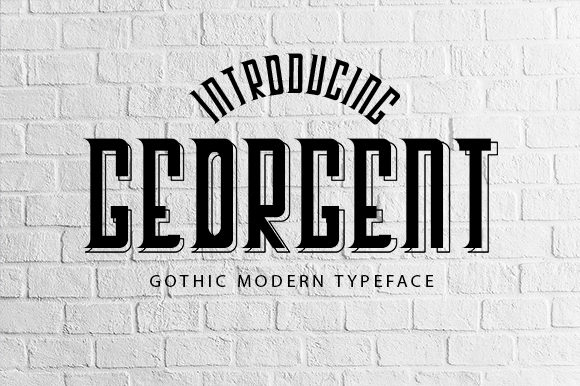
Introducing Georgent Font: The Bold and Timeless Display Font for Modern Websites
In the realm of web design, fonts hold the power to transform the digital landscape into a captivating tapestry of visual artistry. They are the unsung heroes that elevate user experience, leaving an indelible mark on the hearts and minds of your audience.
Georgent Font, crafted with meticulous care by the renowned FOLV, is not merely a collection of letters and glyphs; it's an artistic masterpiece that will ignite your creative spirit and unleash the boundless potential of your designs. This remarkable display font exudes boldness and strength, its timeless appeal transcending the ever-changing tides of design trends.
Adorned with sharp edges and commanding curves, Georgent Font possesses an innate ability to captivate attention, transforming ordinary text into a symphony of visual delight. Its unwavering presence will elevate your headlines, making them impossible to ignore, while its graceful serifs add a touch of sophistication, ensuring that your designs exude an air of elegance and refinement.
With Georgent Font at your fingertips, the possibilities are infinite. Create logos that command attention, headlines that demand action, and body text that invites readers to immerse themselves in your content. Whether you're designing websites, brochures, posters, or social media graphics, Georgent Font will seamlessly adapt to your vision, becoming an integral part of your creative journey.
Step into the world of modern web design with Georgent Font as your trusted companion. Its versatility knows no bounds, empowering you to tackle any project with confidence, knowing that your designs will stand out from the crowd and leave a lasting impression.
Don't settle for ordinary fonts that blend into the background. Embrace the power of Georgent Font, and watch as your designs transform into captivating works of art. Let your creativity soar, knowing that Georgent Font will faithfully accompany you every step of the way.